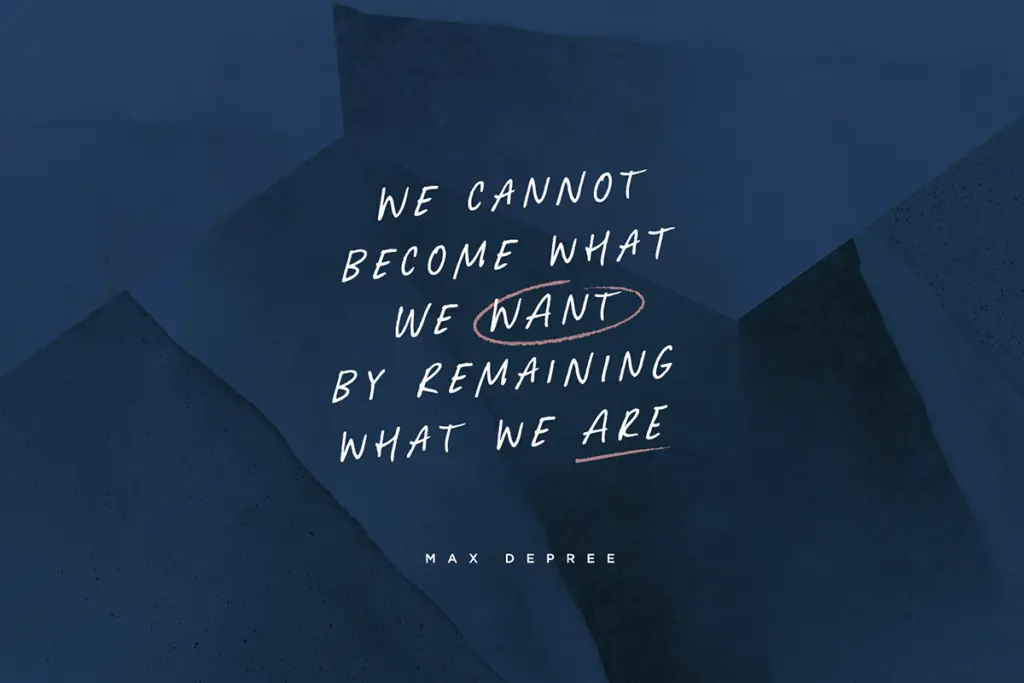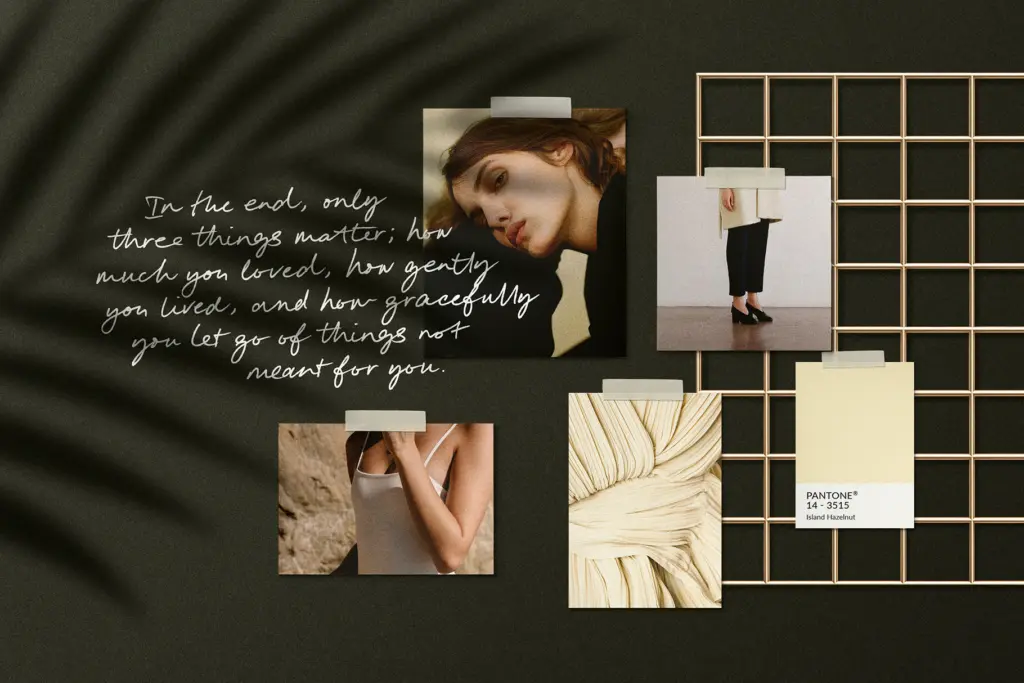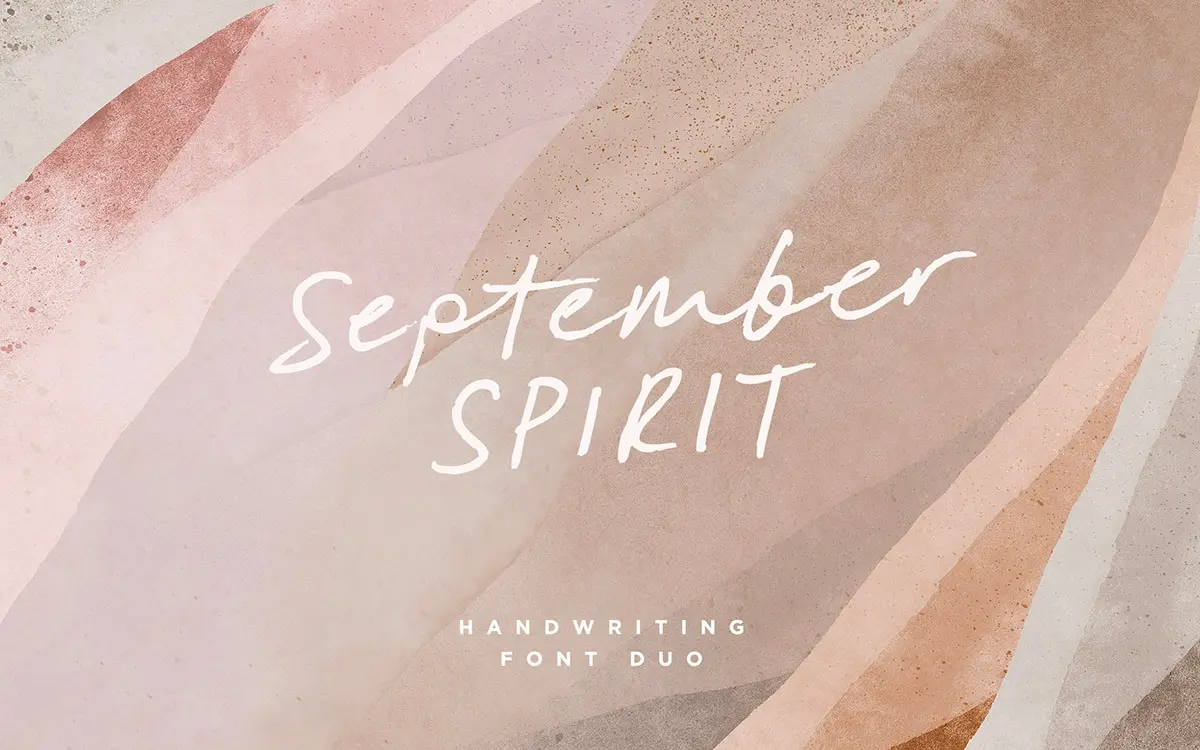
September Spirit is a casual handwritten script that leans hard into imperfection as a design strategy. The strokes have the slight wobble and inconsistent pressure of a felt-tip pen moving quickly across paper, and the letters connect with genuine flow rather than the mechanical joins you get from a lot of script fonts built purely from a single alphabet. Sam Parrett has clearly worked from real handwriting samples, and it shows in the way individual letters lean and drift rather than sitting on a rigid baseline.
What separates this from the glut of similar handwritten scripts is the alternate letterform set. Rather than relying on a handful of swash variants, the duo ships a second complete alphabet with different letter shapes, so repeated words don’t fall into an obvious repeating pattern. That’s a real production decision, not a gimmick, and it’s the part of the brief worth paying attention to.
The core family covers upper and lowercase, numerals, and a broad punctuation set, plus ligatures built from actual handwritten combinations rather than generated joins. The ligatures do the heavy lifting here — swapping in a hand-drawn